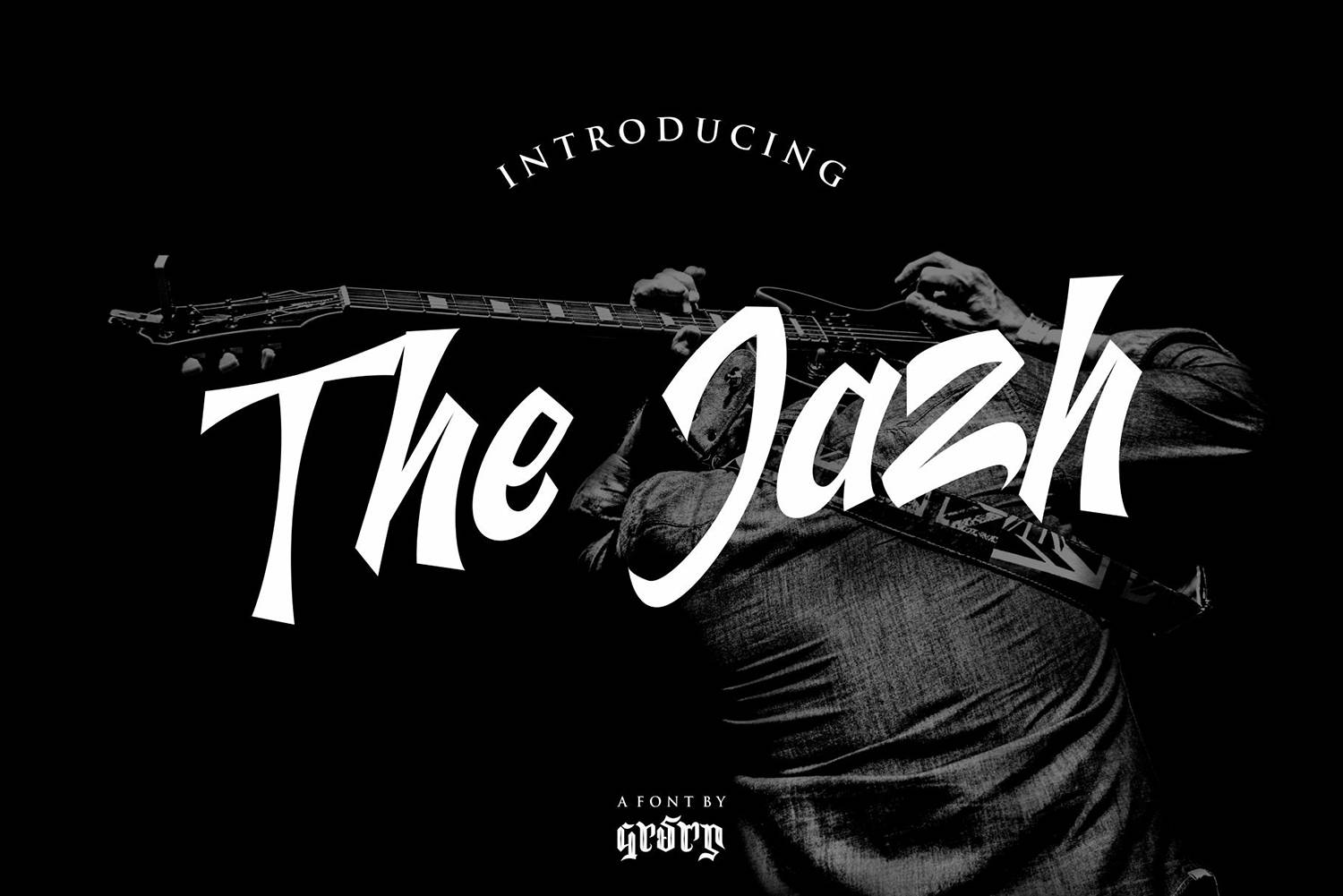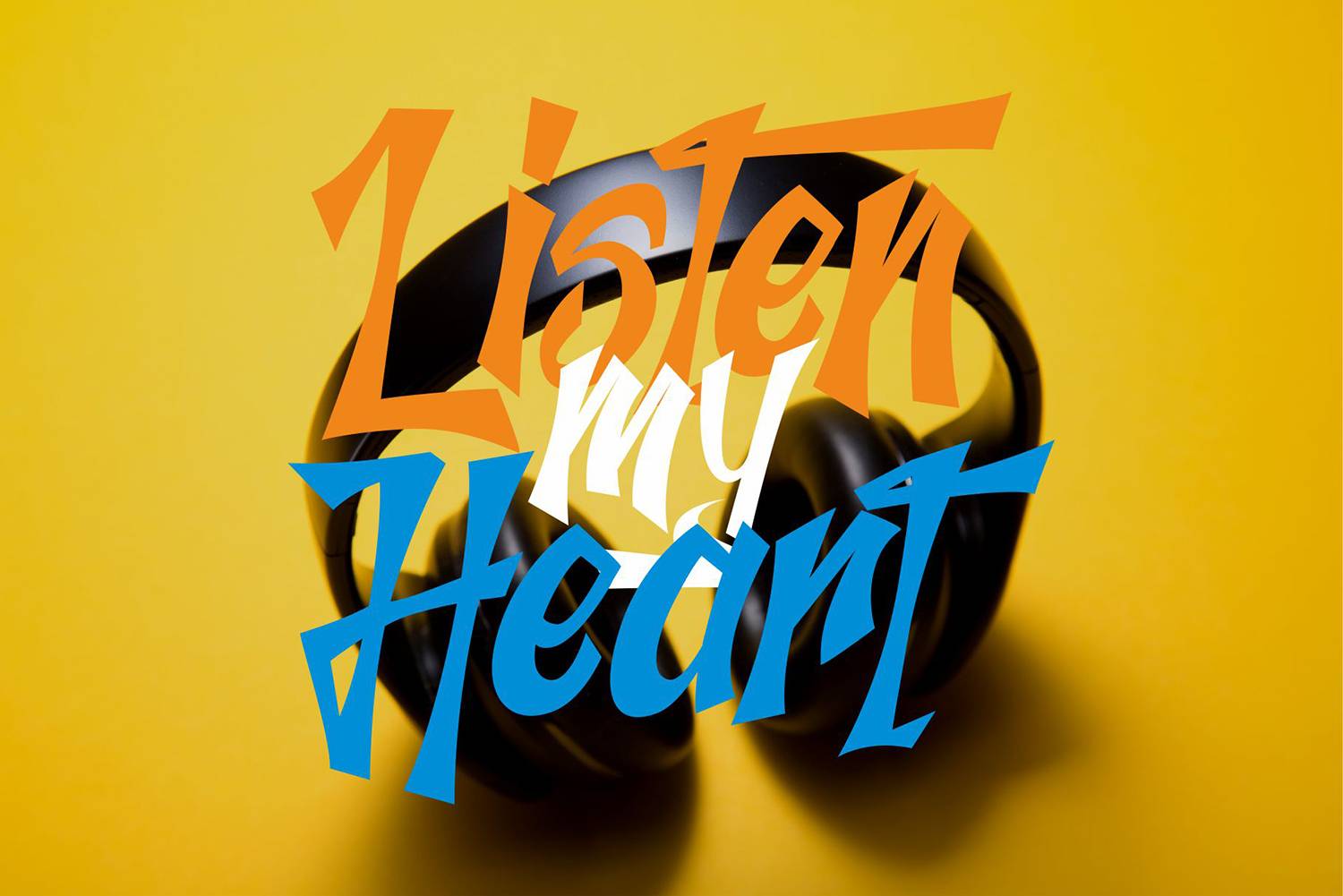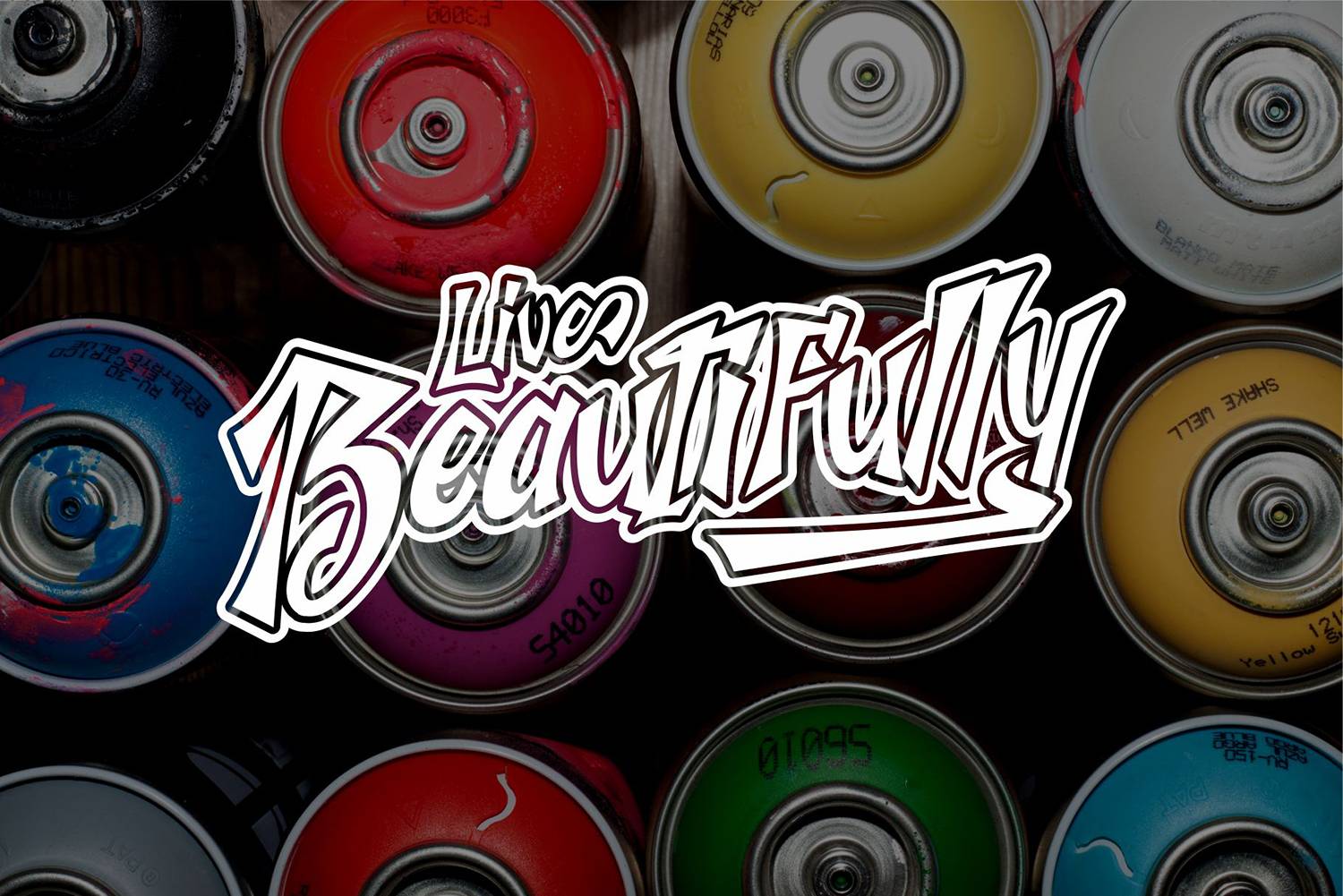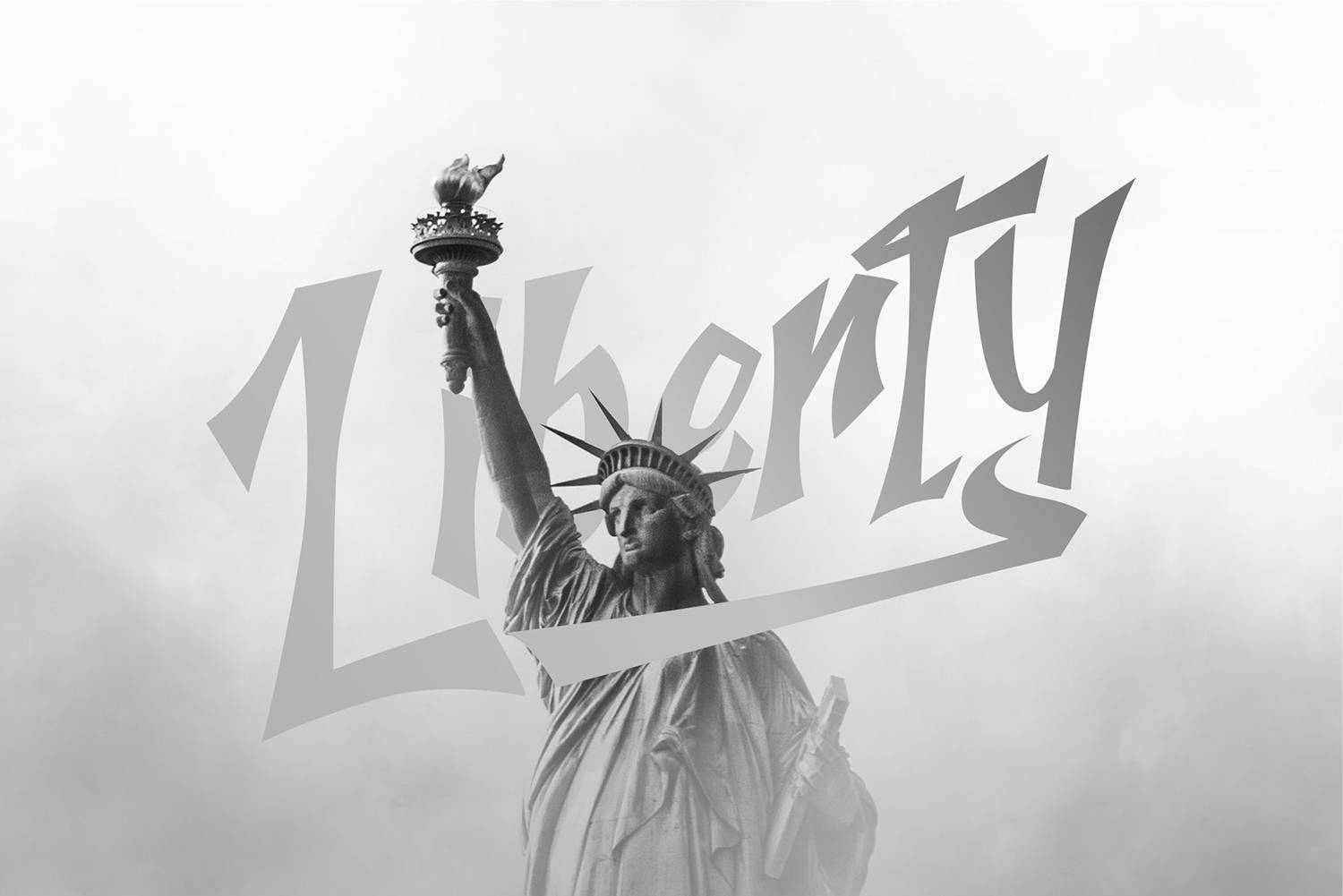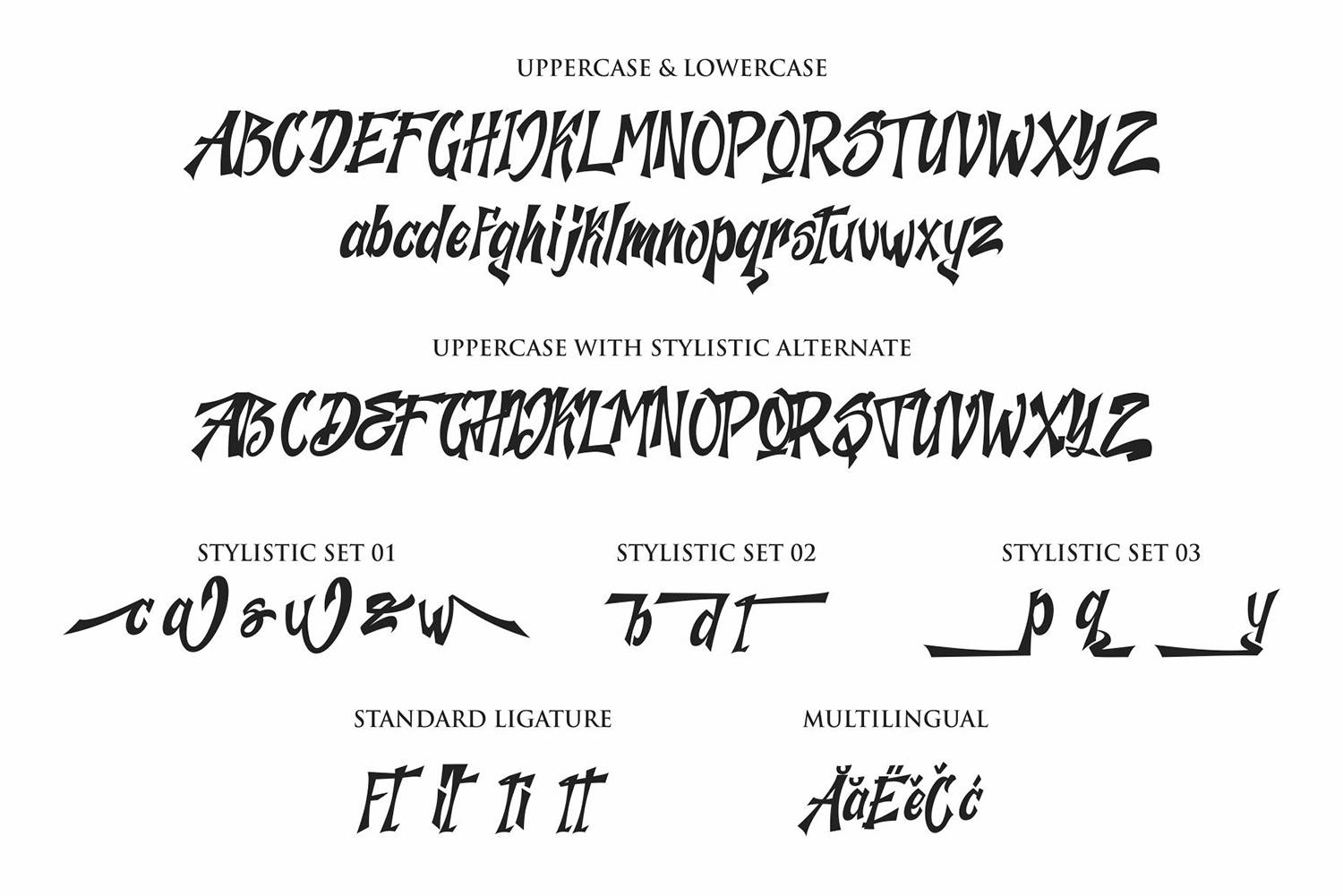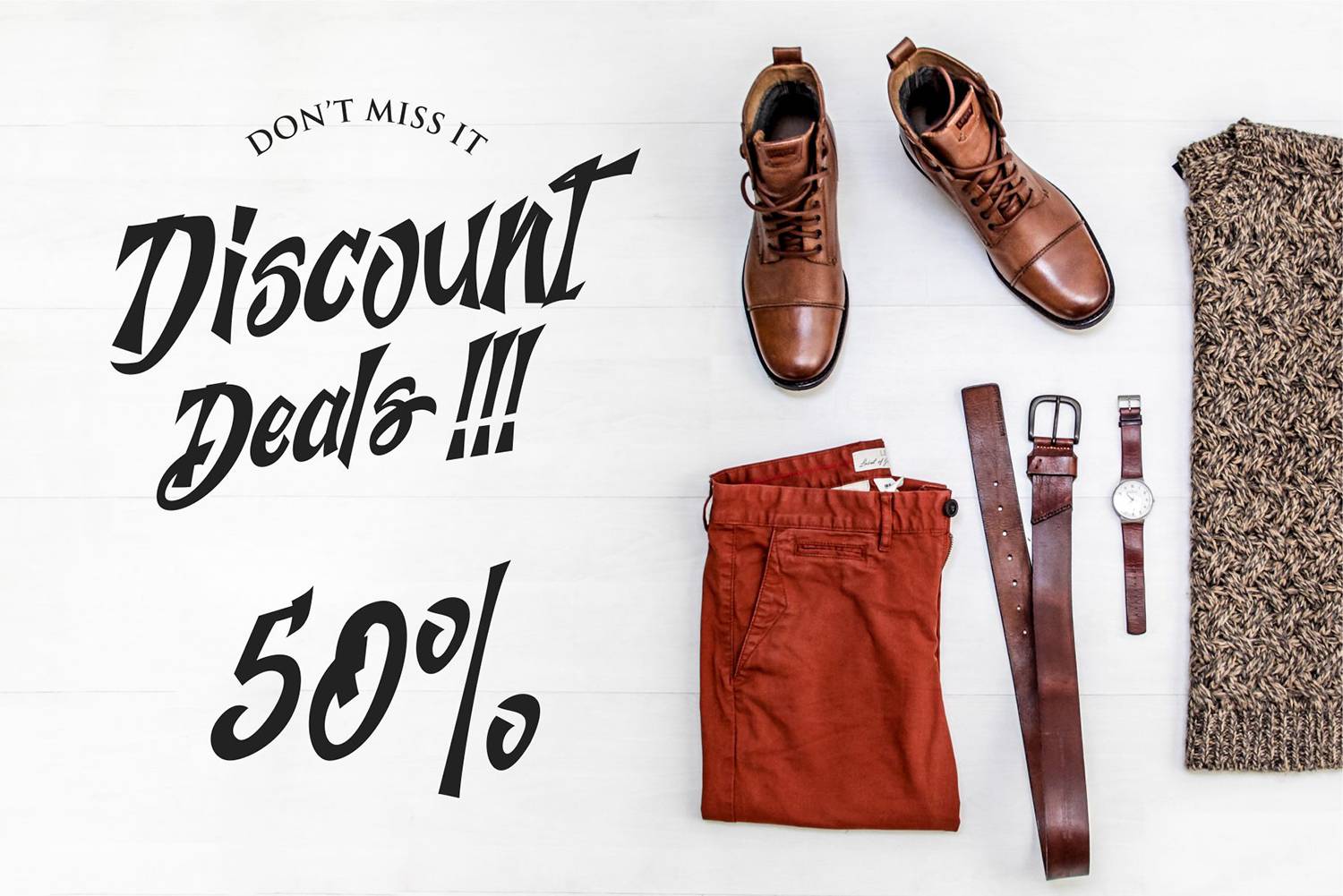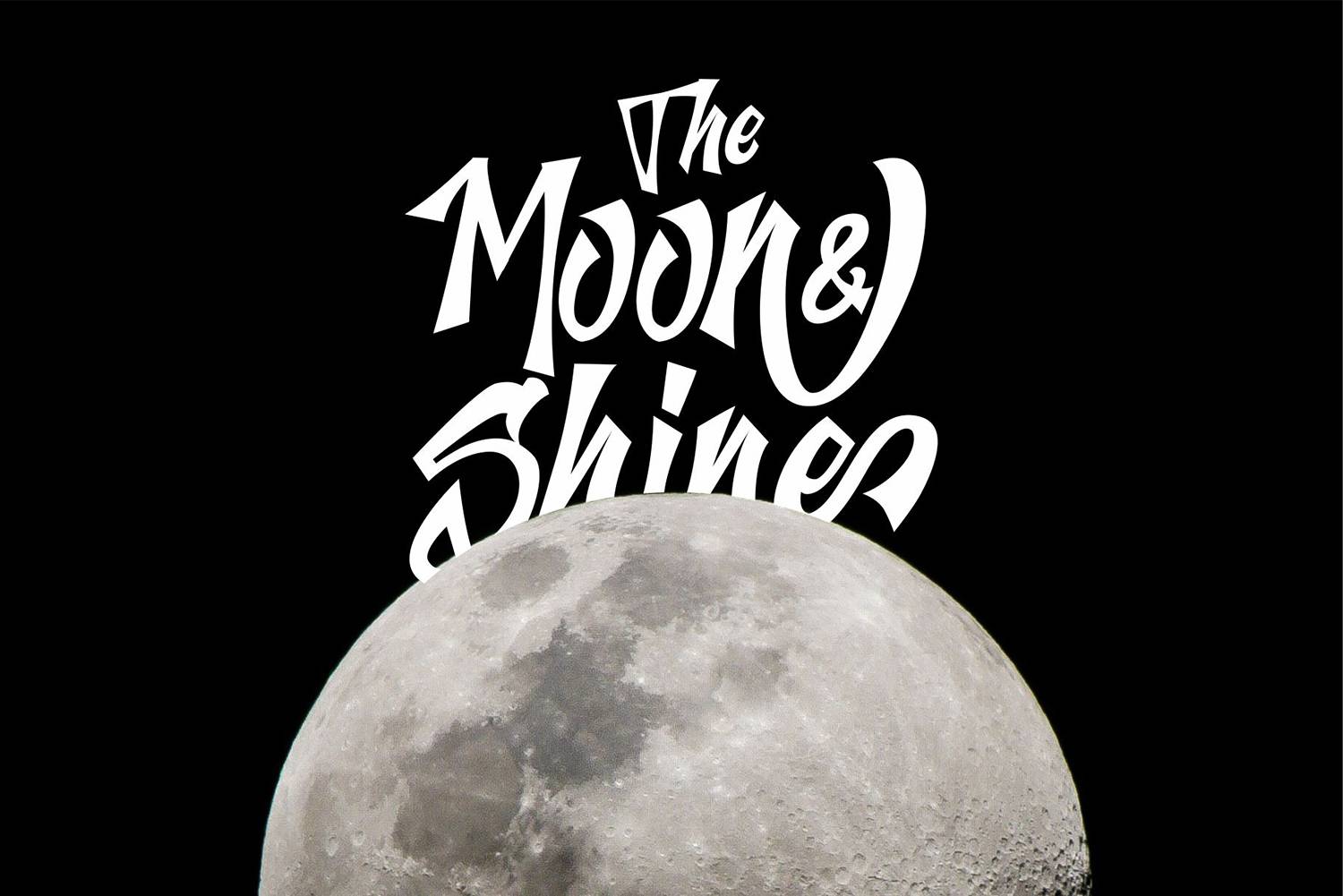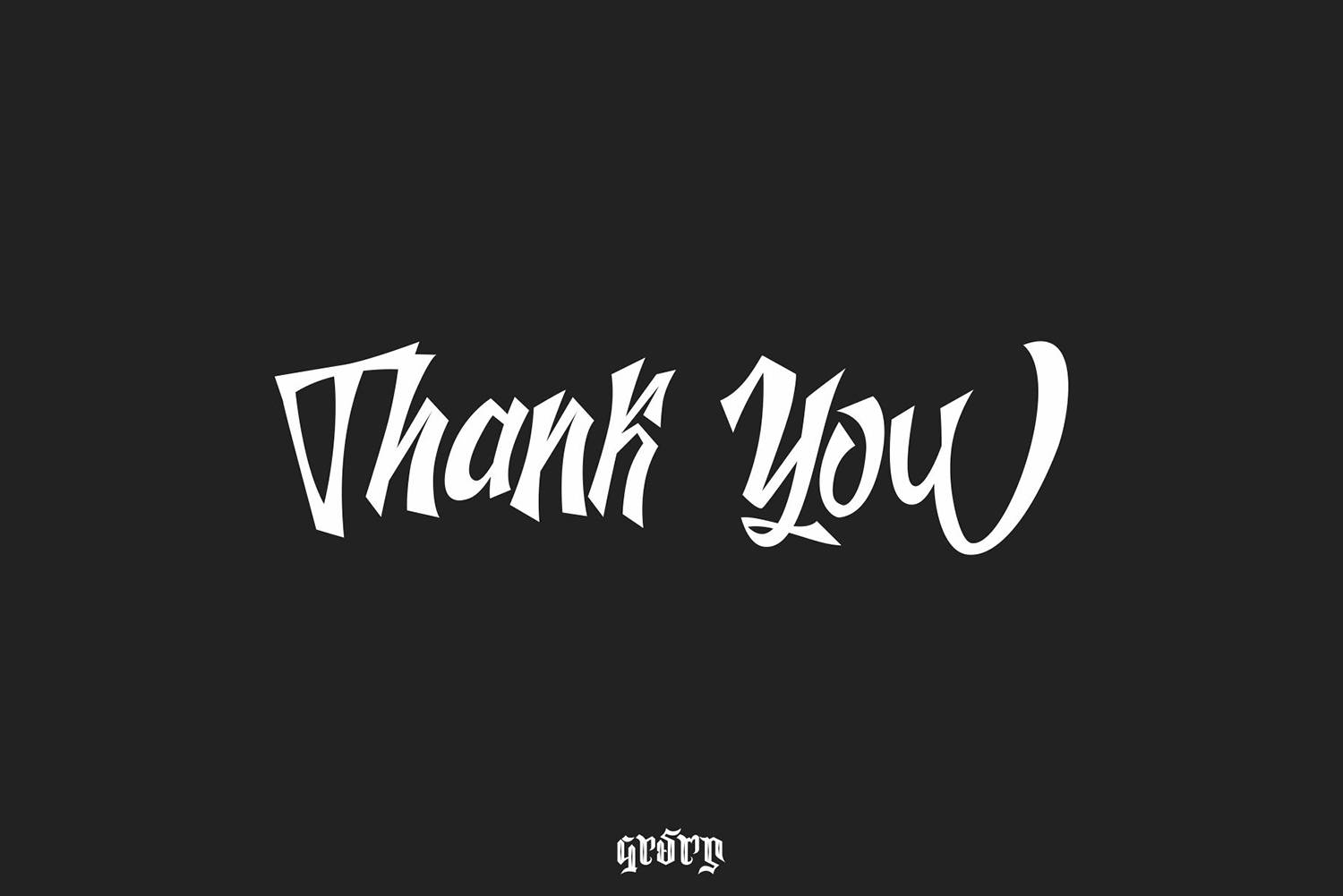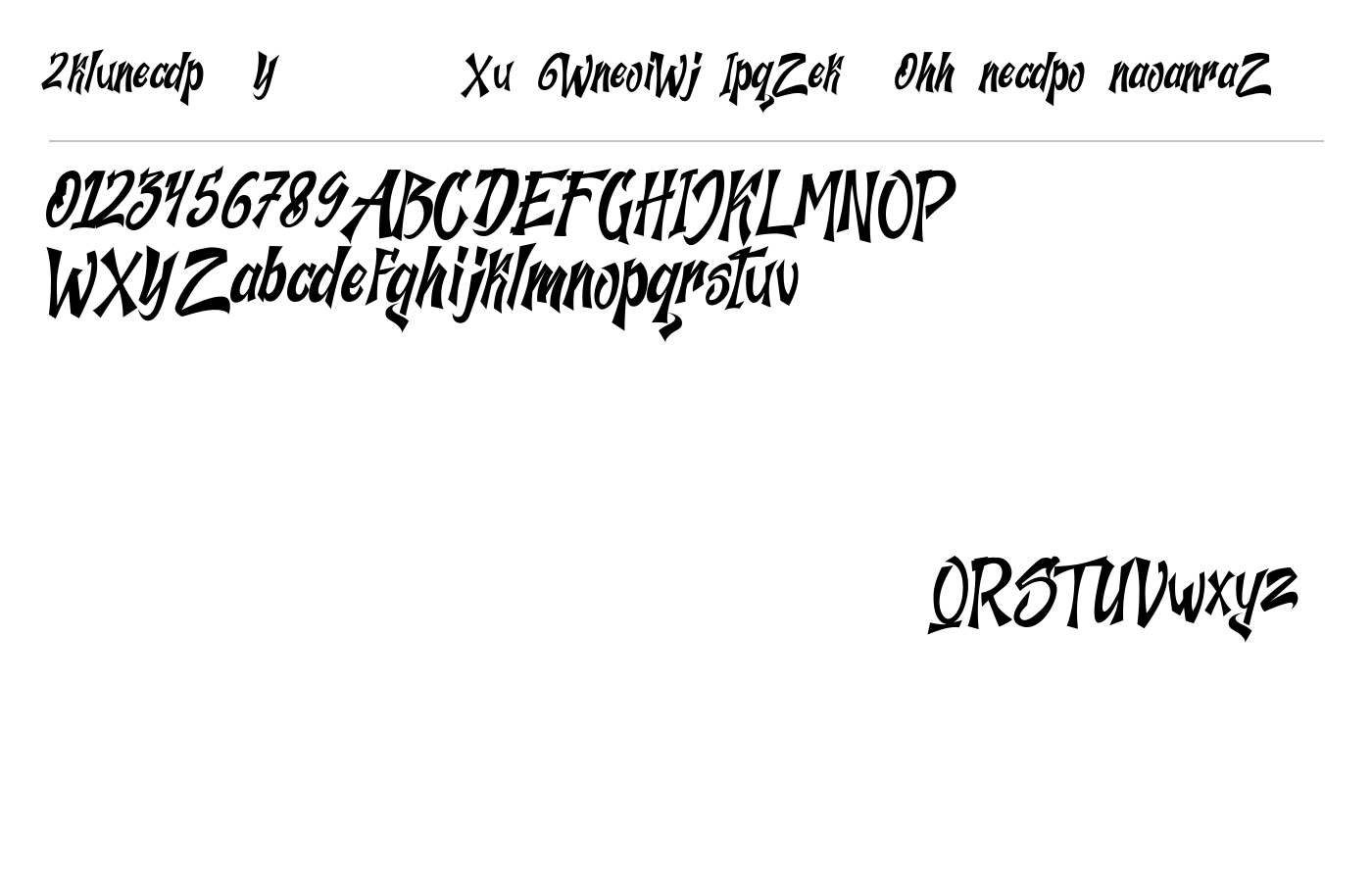
The Jazh Font is a bold and dynamic script-inspired typeface with sharp, angular strokes and an expressive, hand-drawn feel. Its irregular letterforms and high contrast create a lively, edgy personality that works well for creative headlines, logos, and design projects seeking a unique, artistic vibe. This font shines best when used sparingly to add striking visual impact and energetic flair.
The Jazh Font
About The Jazh Font
| Font family | The Jazh Font |